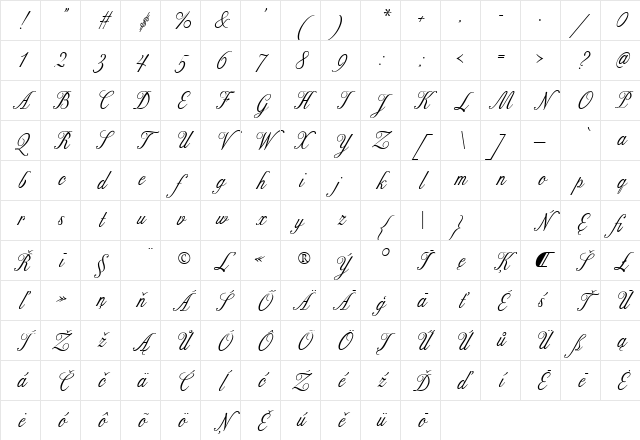
ExcelsiorScriptTextCE Medium
ExcelsiorScriptTextCE Family
ExcelsiorScriptTextCE Medium
Design Context for ExcelsiorScriptTextCE
ExcelsiorScriptTextCE flows with the natural rhythm of handwritten lettering, making it ideal for designs that call for warmth and personal expression.
Font Pairing: Combine ExcelsiorScriptTextCE with a simple geometric sans for maximum contrast - the tension between flowing curves and clean structure is a classic typographic pairing.
Pro Tip: Use ExcelsiorScriptTextCE for short runs of text - names, titles, or taglines. Extended body copy in script faces tires the eye quickly.